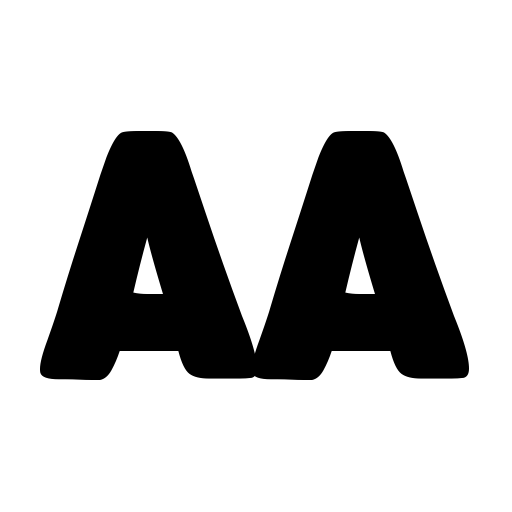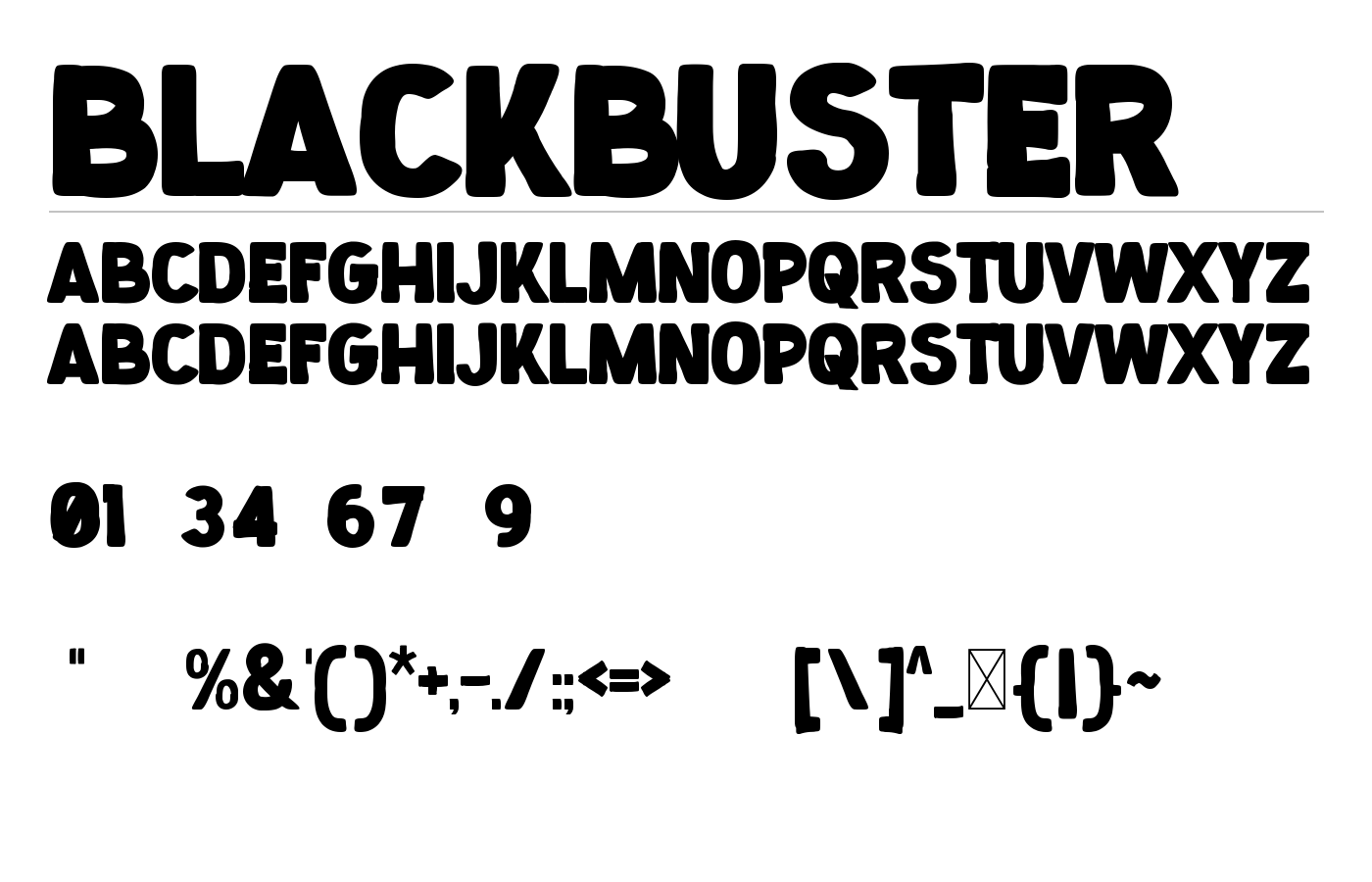
Blackbuster is a bold, playful sans serif font with rounded, chunky letterforms that create a friendly and approachable vibe. Its irregular shapes and moderate contrast add a hand-crafted and casual feel, making it perfect for fun, informal branding, posters, children’s materials, and any design that benefits from a lively, eye-catching style. Its strong presence and unique personality help it stand out in display use, especially in contexts where warmth and creativity are key.
| Designer | Anang F & Malik Wsn | Gassstype© Studio 2021 |